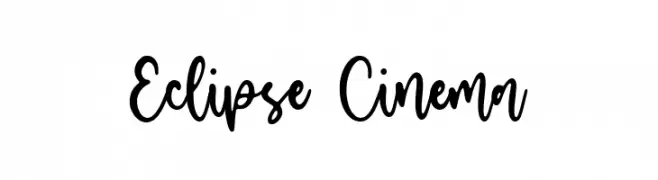
A bold, expressive brush-style font with dynamic, hand-painted strokes.
A bold, geometric font with a modern, industrial style.
A bold, outlined font with a playful and modern aesthetic.
A bold, playful font with a 3D shadow effect, perfect for dynamic designs.
A bold, distressed stencil font with an industrial, vintage feel.
A playful, cursive script font with fluid strokes and rounded letterforms.
A bold, circular font with a playful and modern design.
A handwritten, cursive font with elegant and fluid strokes.
A playful, bold handwritten font with rounded characters.
A lively, flowing script font with bold, expressive characters.